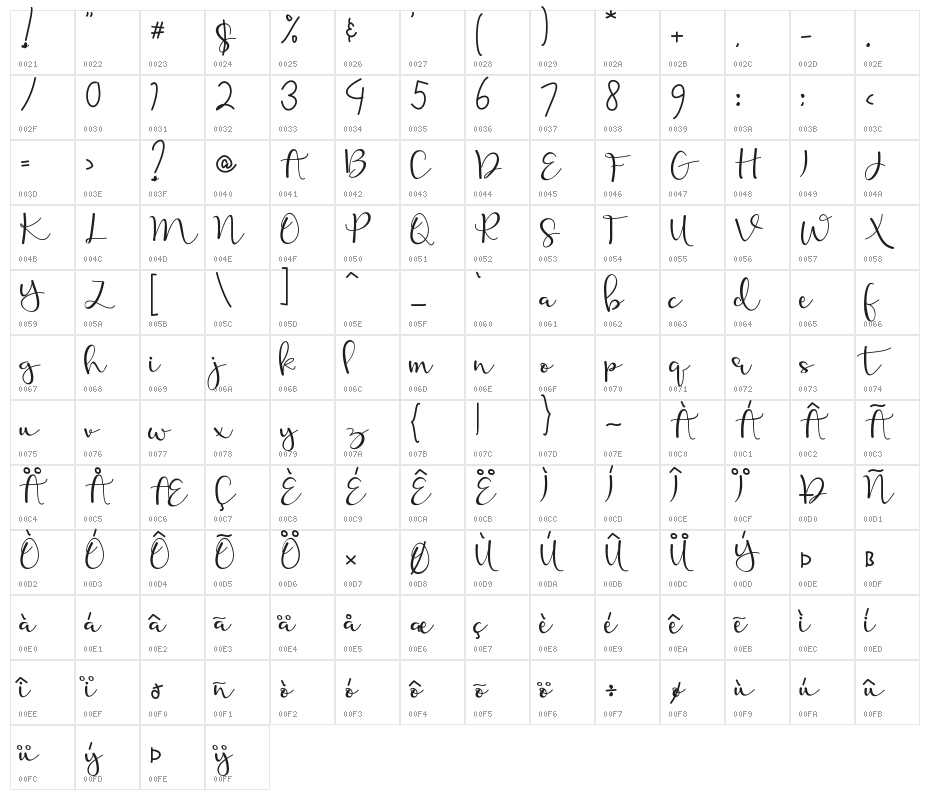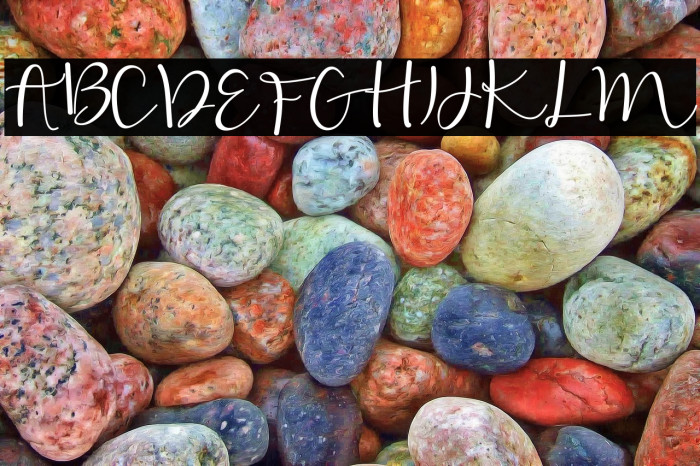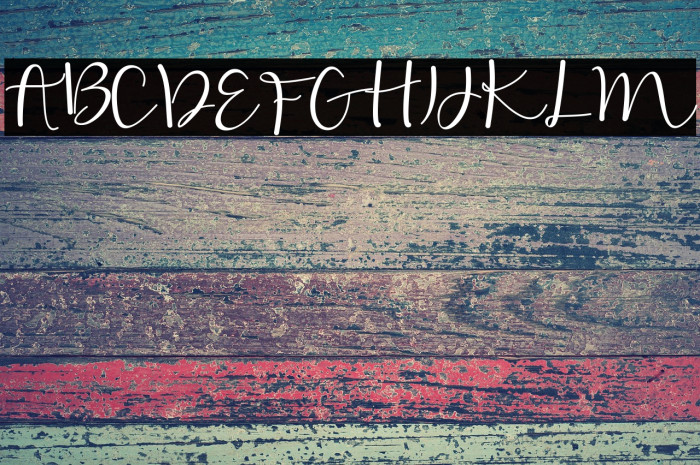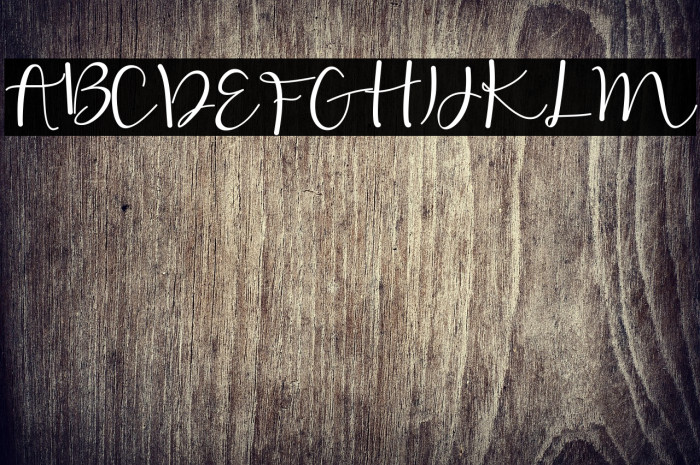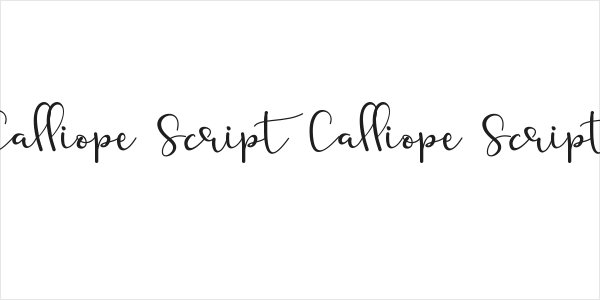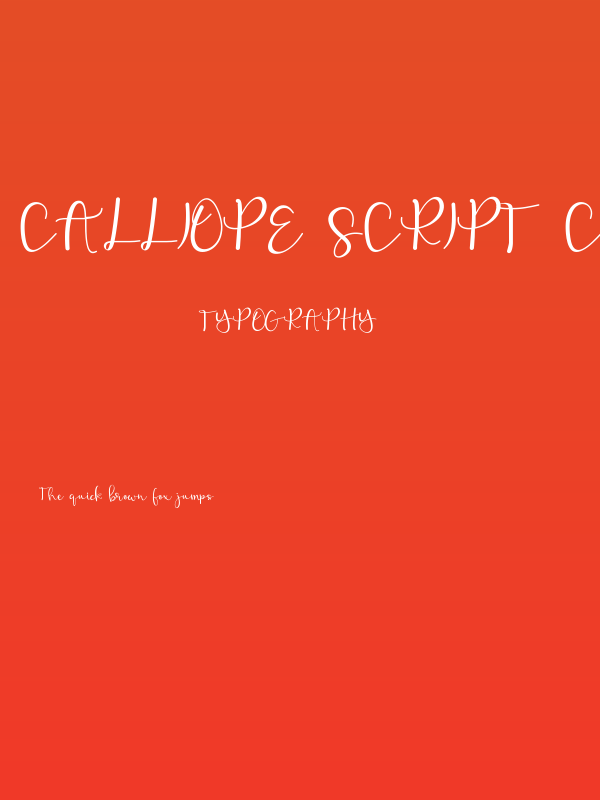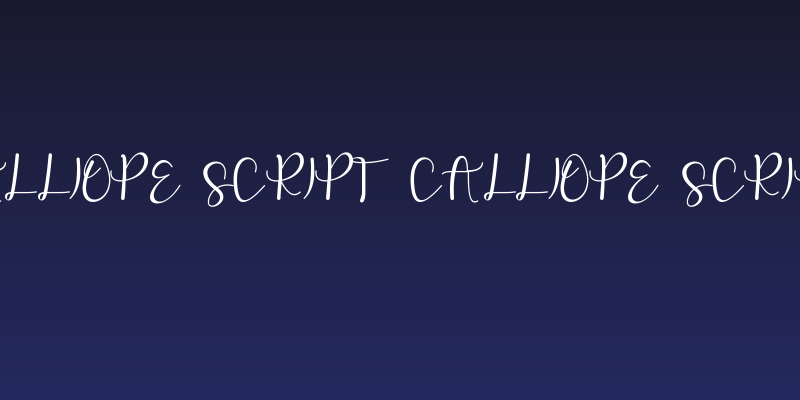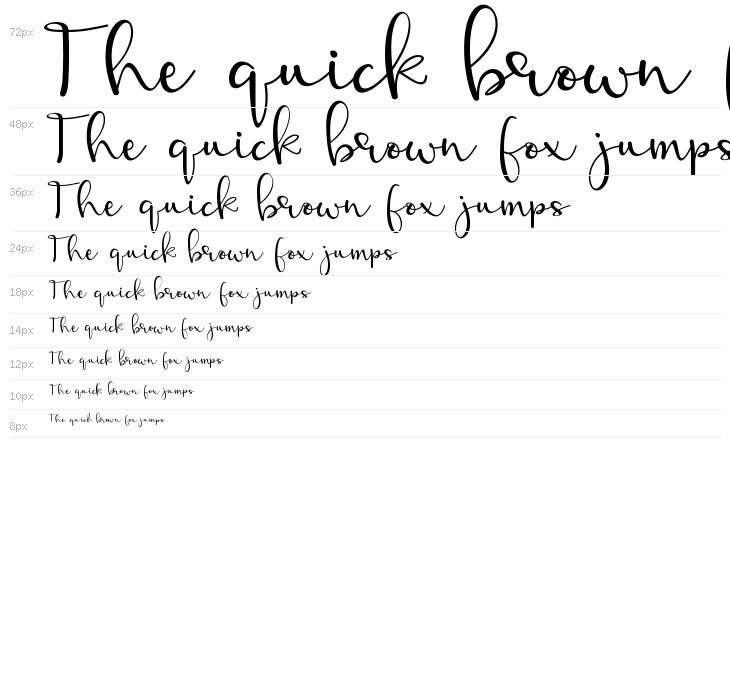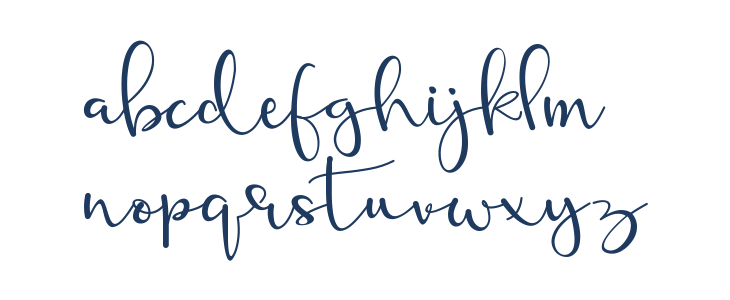
Calliope Script Font
Calliope Script Description
This font features an elegant and flowing script style that mimics the fluidity of handwriting. The uppercase letters are characterized by their tall, graceful loops and sweeping curves, while the lowercase letters maintain a consistent, flowing baseline with occasional flourishes. The numerals are designed with a similar fluidity, ensuring a cohesive look across all characters. Special characters are crafted with the same attention to detail, providing a harmonious and stylish appearance. The overall design exudes a sense of sophistication and charm, making it ideal for projects that require a personal touch.
| Overall Style | Elegant, Handwritten |
| Use Case | Logos, Invitations, Personal stationery |
| Proposed Projects | Ideal for wedding invitations, greeting cards, branding, and personal stationery. |